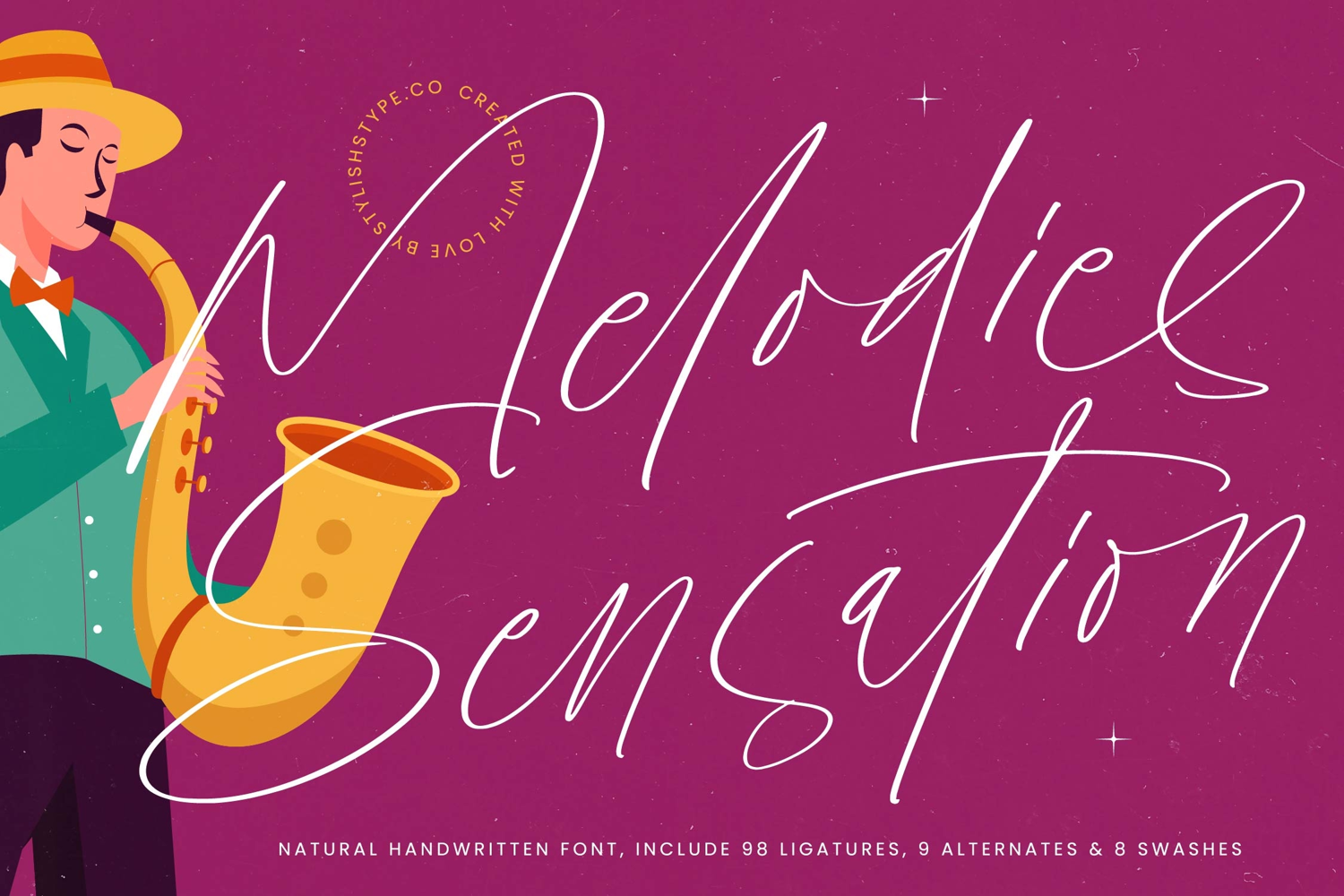
Melodies Sensation - Natural Handwritten Font
Melodic Sensation is a natural handwritten font that blends musical rhythm, artistic handwriting flow, and modern elegance. Featuring 98 ligatures, 9 alternates, and 8 swashes, this typeface provides powerful creative flexibility, allowing designers to craft unique lettering compositions that are both expressive and stylish. Each stroke was carefully designed with organic rhythm and delicate precision, ensuring your typography feels authentic, professional, and full of character.
The true beauty of Melodic Sensation lies in its ability to communicate artistry and intimacy. Its handwritten strokes feel graceful and romantic, while the ligatures and alternates allow you to tailor the mood — from delicate and elegant to bold and expressive. This versatility makes it especially suitable for industries like music, weddings, lifestyle, fashion, beauty, and creative advertising, where visual storytelling and emotional depth are essential.
More than just a decorative typeface, Melodic Sensation is also a storytelling tool. It transforms ordinary words into captivating visuals, giving your designs a signature handwritten identity. From album covers and event posters to editorial layouts, luxury invitations, and advertising campaigns, this font ensures your creative projects stand out with style, personality, and artistic refinement.
If you’re looking for a handwritten font that blends romantic artistry, modern usability, and timeless sophistication, Melodic Sensation is the perfect choice. It elevates your projects with grace, authenticity, and a touch of musical rhythm, ensuring every design leaves a lasting impression with style and charm.